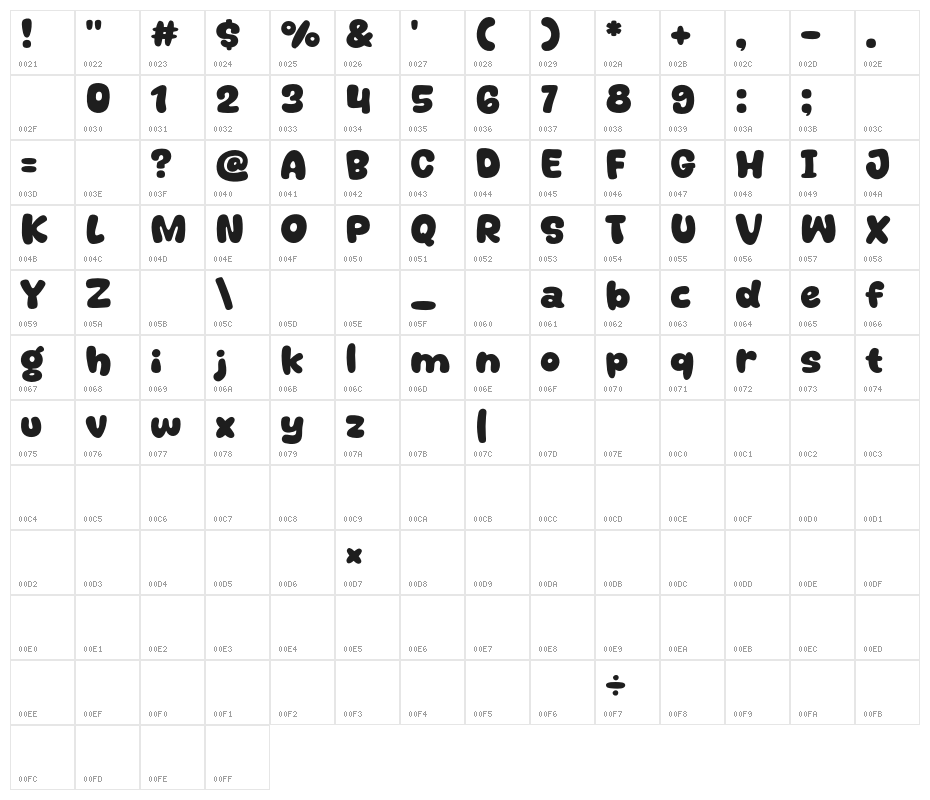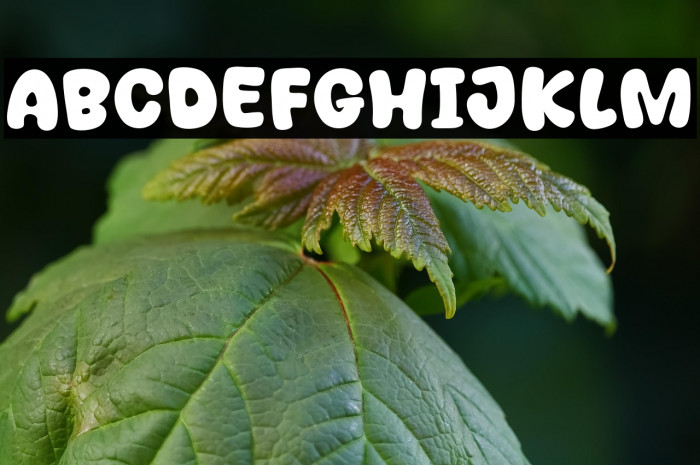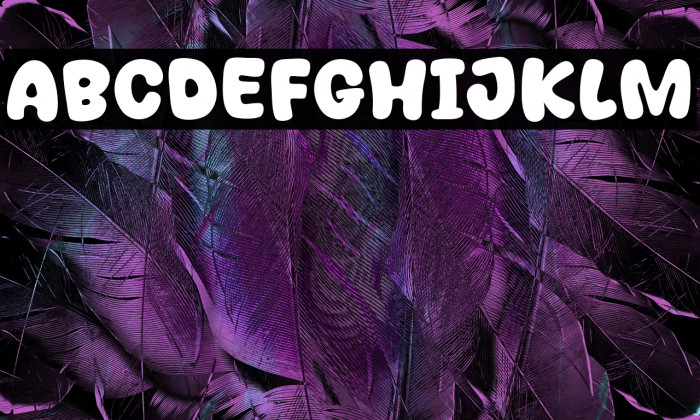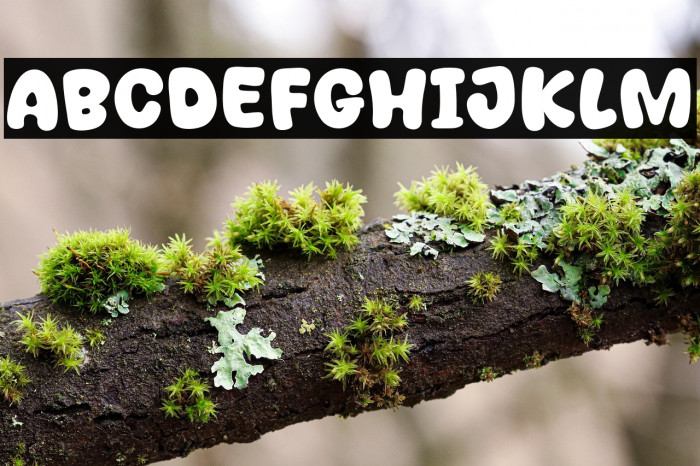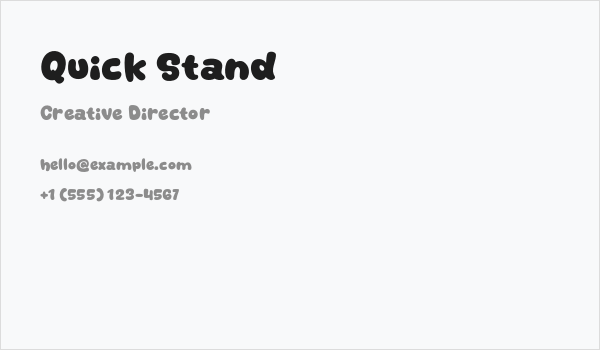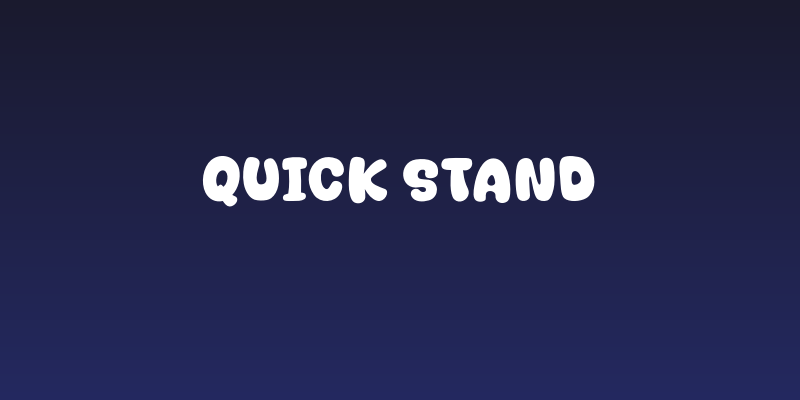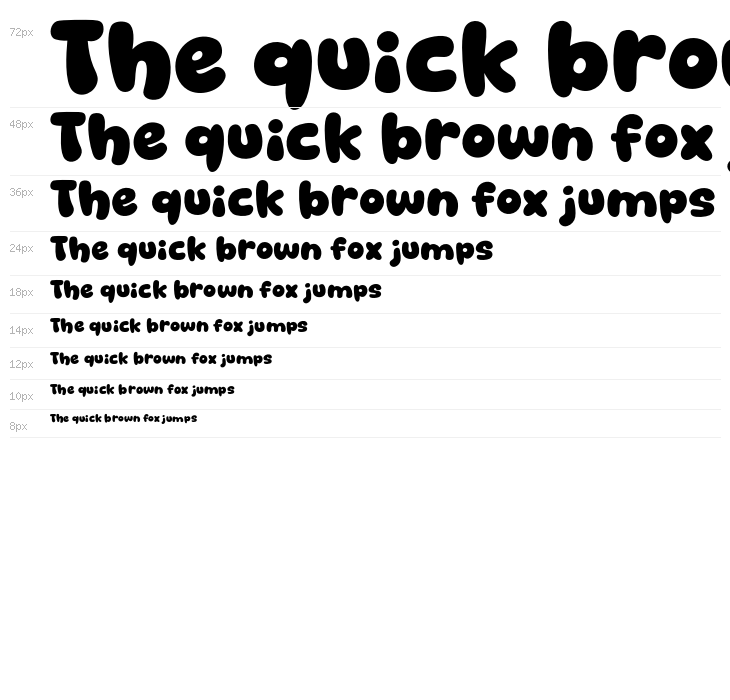
Quick Stand Font
Quick Stand Description
This playful and bold font features rounded, bubble-like characters that exude a sense of fun and whimsy. The letters are thick and substantial, with a uniform stroke width that gives them a strong presence on the page. The overall design is smooth and friendly, making it ideal for projects that aim to convey a lighthearted and approachable tone. The font includes a full set of uppercase and lowercase letters, numerals, and a variety of special characters, ensuring versatility in its application.
| Overall Style | Playful, Fun |
| Proposed Projects | Ideal for children's books, playful branding, party invitations, and any project requiring a fun and approachable aesthetic. |